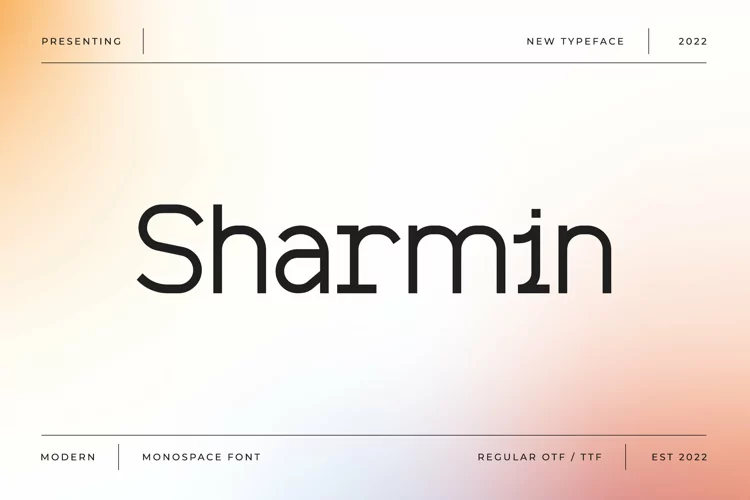
Sharmin - Modern & Monospace Font
Sharmin is a monospace display font perfect for a wide variety of designs.
Add this beautiful display font to each of your creative ideas, and notice how it makes them stand out!
– Uppercase
– Lowercase
– Symbols & Punctuation
– Numeral
– Ligature
– Alternate
– Multilingual Support